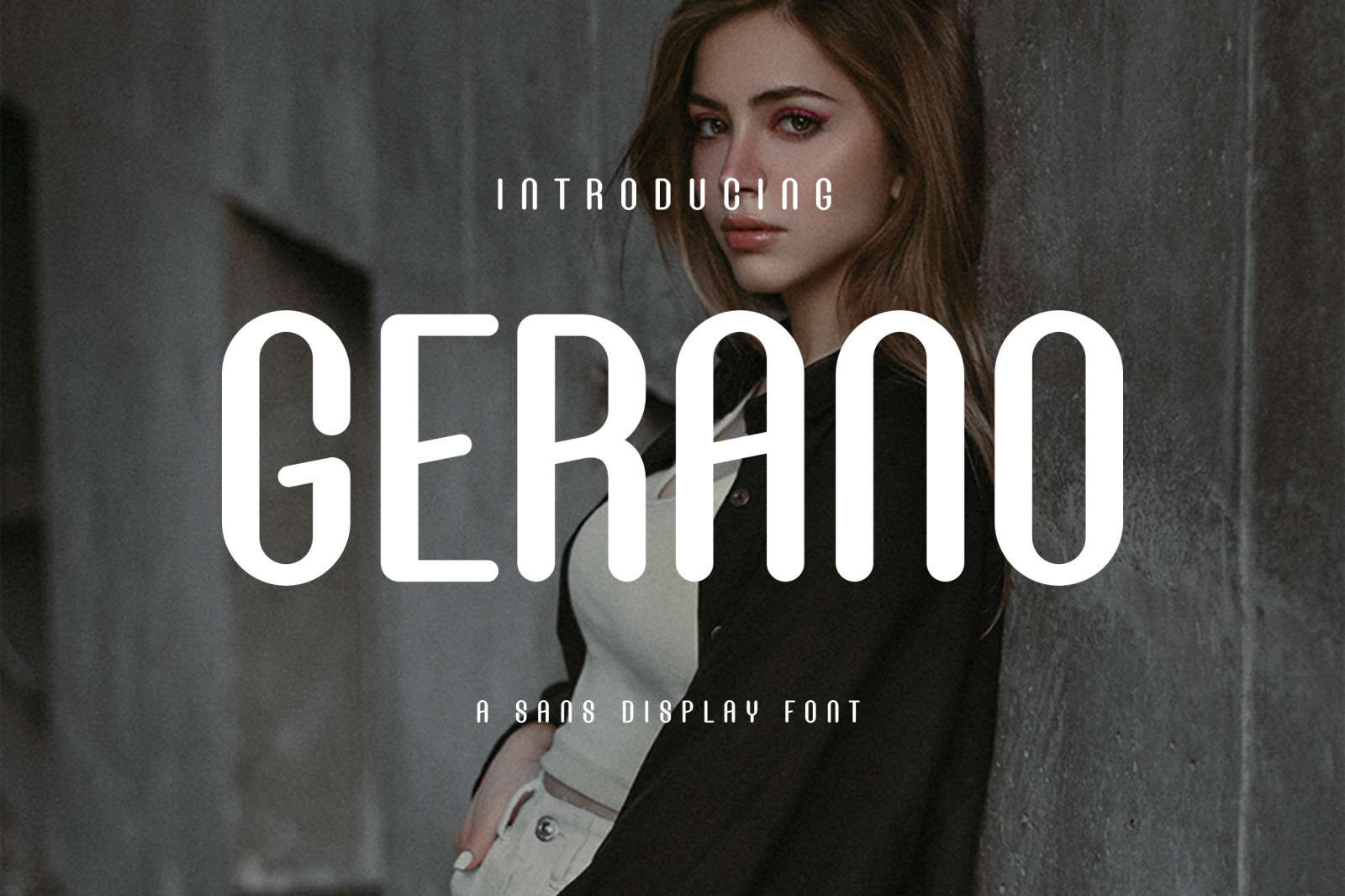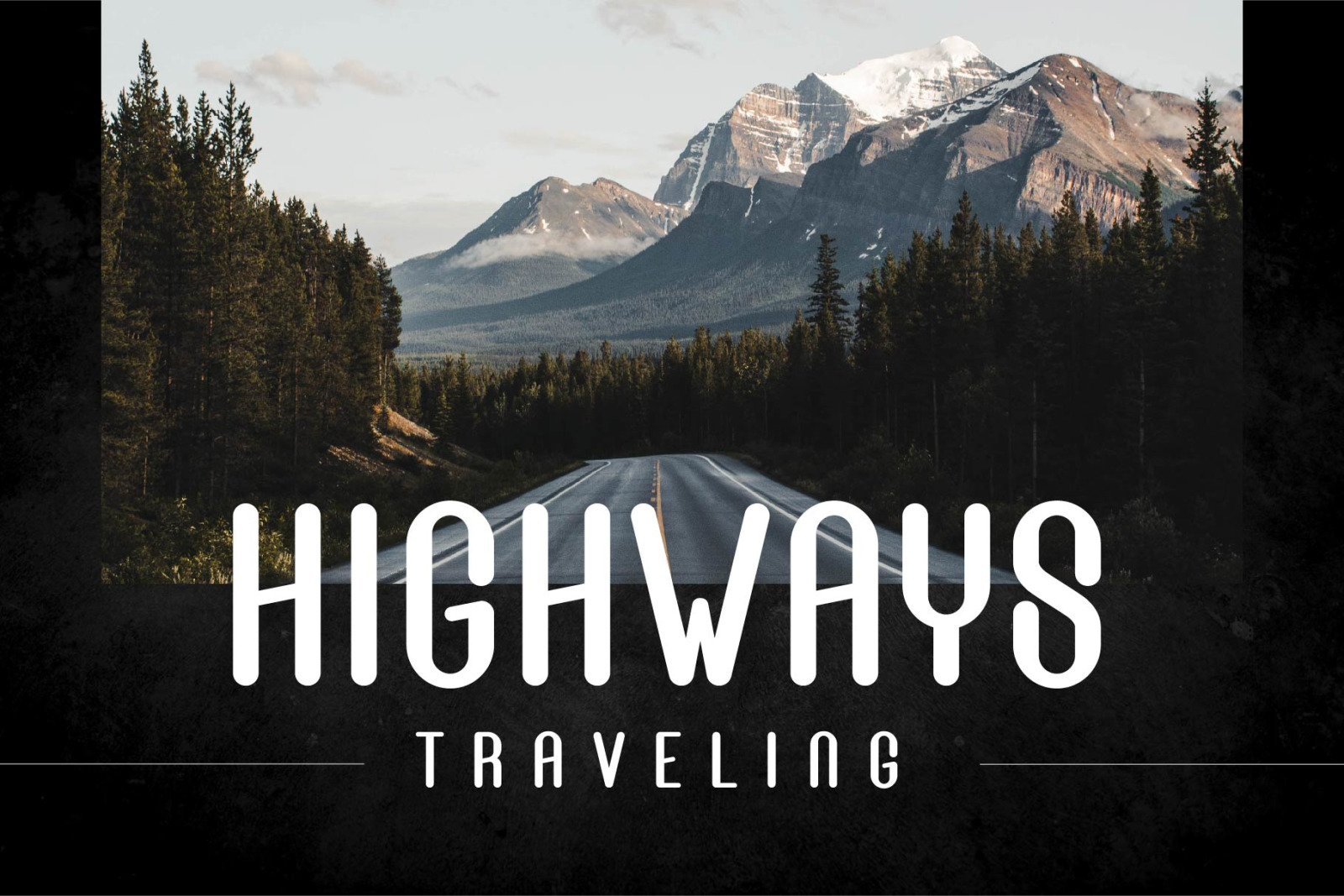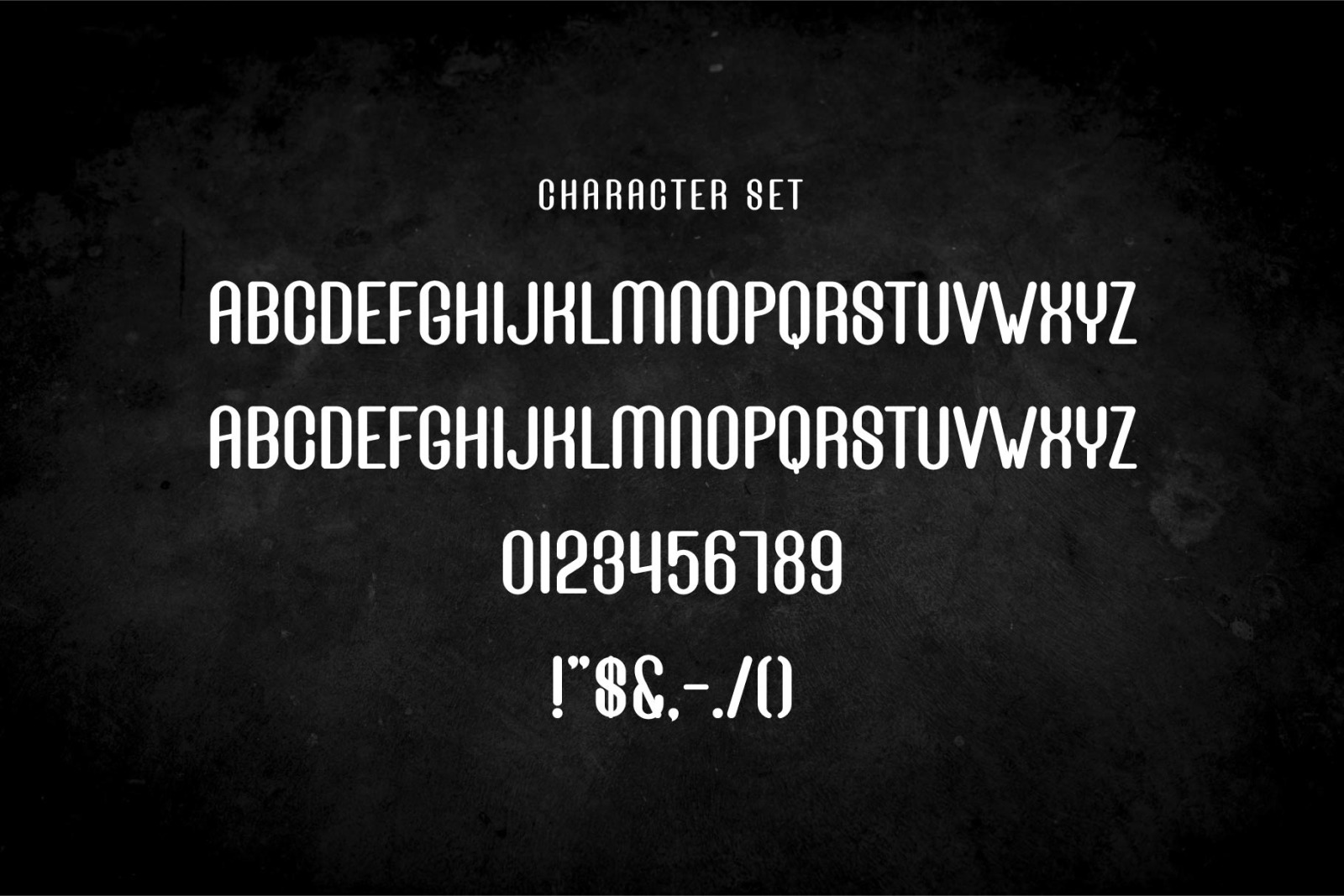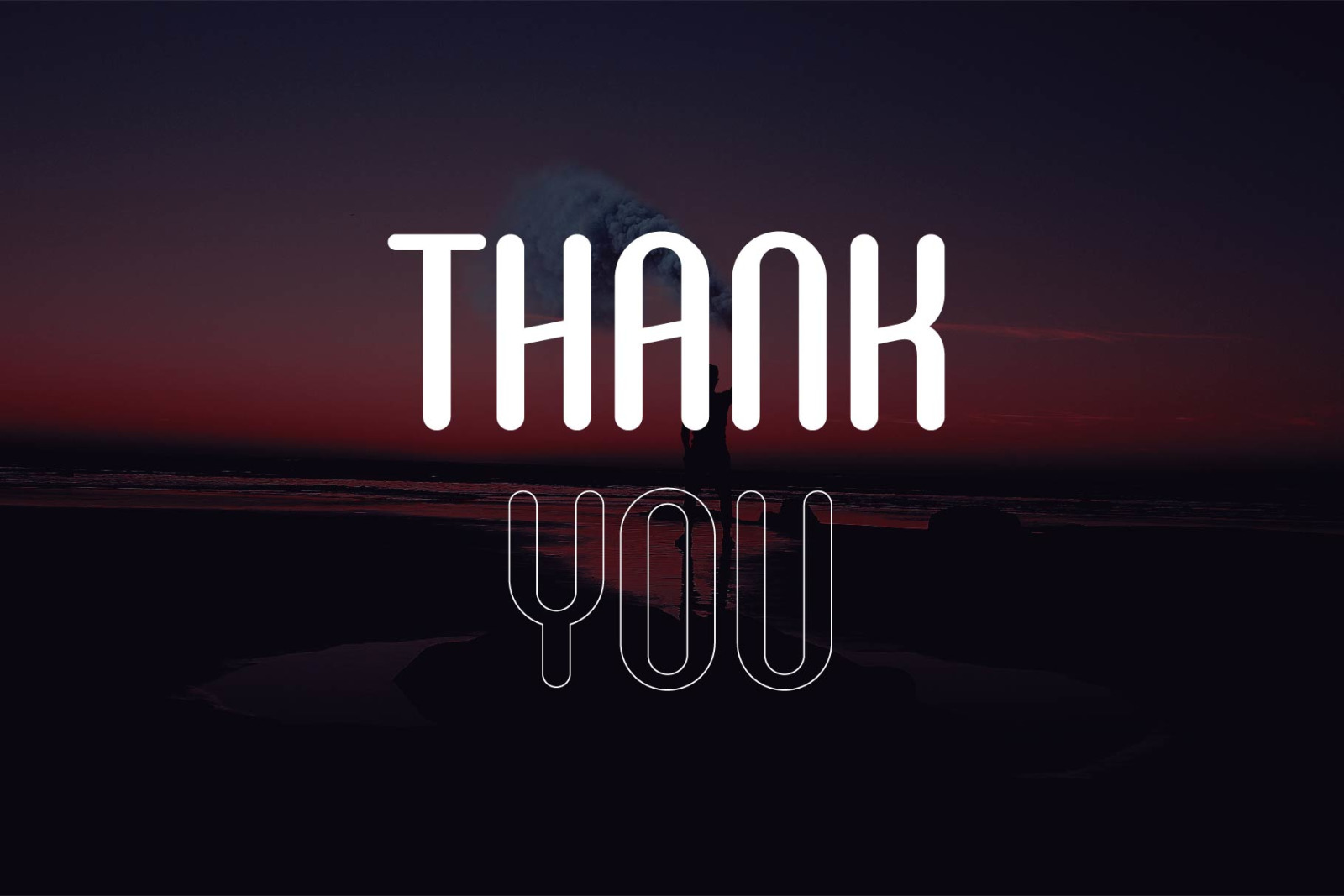
Gerano Font
Gerano Sans Font Typeface inspired by the famous minimalist logo perfect for the purposes of designing templates, brochures, videos, advertising branding, logos, invitation, layout design, elegant crafting, beauty design and other.